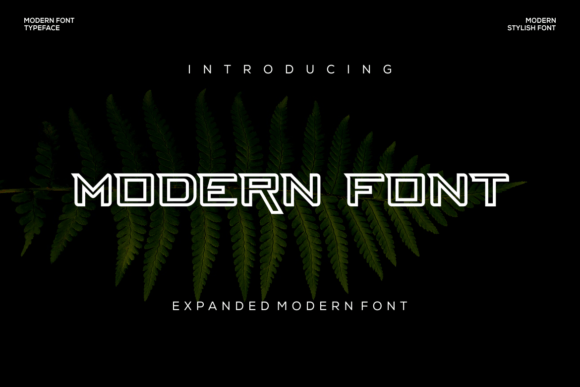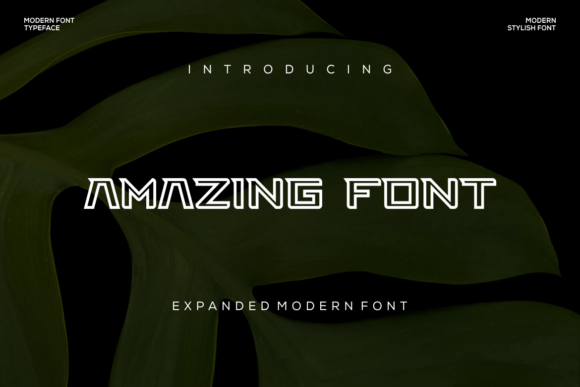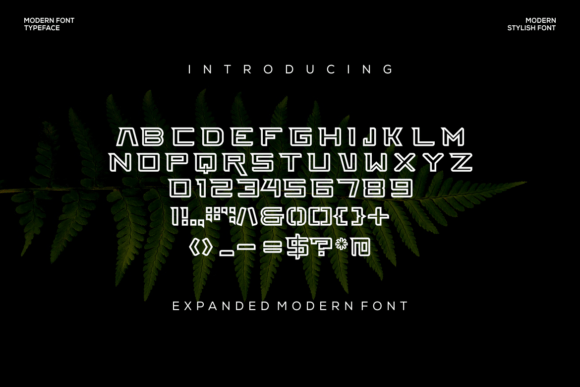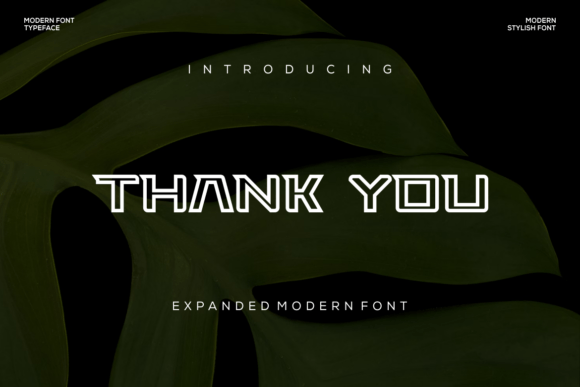
Introduction to Leyaks Font
Imagine you’re brainstorming ideas for a new project, and suddenly, the perfect font pops into your mind. The words flow effortlessly, and your design starts to take shape. This is what happens when you have the right design resource at your fingertips. For designers, finding the perfect font can be the difference between a mediocre project and a masterpiece. That’s why we’re excited to introduce the Leyaks Font, a modern and authentic display font that’s about to become your new go-to.
With its bold and eye-catching design, Leyaks Font is perfect for any branding project, from logos to t-shirt printing, and even creative products. Its high-quality design and transparent background make it an ideal choice for designers who want to elevate their projects to the next level.
Key Features of Leyaks Font
- Unique, hand-crafted font with a transparent background, perfect for adding a touch of elegance to your designs
- Includes a comprehensive character set with a wide range of glyphs, including uppercase and lowercase letters, numbers, and punctuation marks
- Supports a range of languages, making it a versatile design resource for global creative projects
Honest Review: Leyaks Font
I recently came across the Leyaks Font while searching for high-quality design resources for a creative project. I must say, it’s a great find. The font is free to download and has a transparent background, which is perfect for designing with.
- What works well: ✨ The font’s unique and modern design makes it perfect for creating eye-catching headings and titles. The variety of styles and weights available ensures that you can use it for a wide range of creative projects.
- What works well: ✨ The Leyaks Font is also highly customizable, allowing you to adjust the font size, color, and spacing to fit your design needs.
- ⚠️ The font may not be suitable for small text or body copy, as it can be quite bold and overwhelming.
- ⚠️ Additionally, the font’s unique design may not be to everyone’s taste, so it’s essential to use it thoughtfully and in context.
The Leyaks Font is ideal for creative projects, such as logos, business cards, and infographics. Its high-quality design and transparent background make it perfect for use on images and backgrounds.